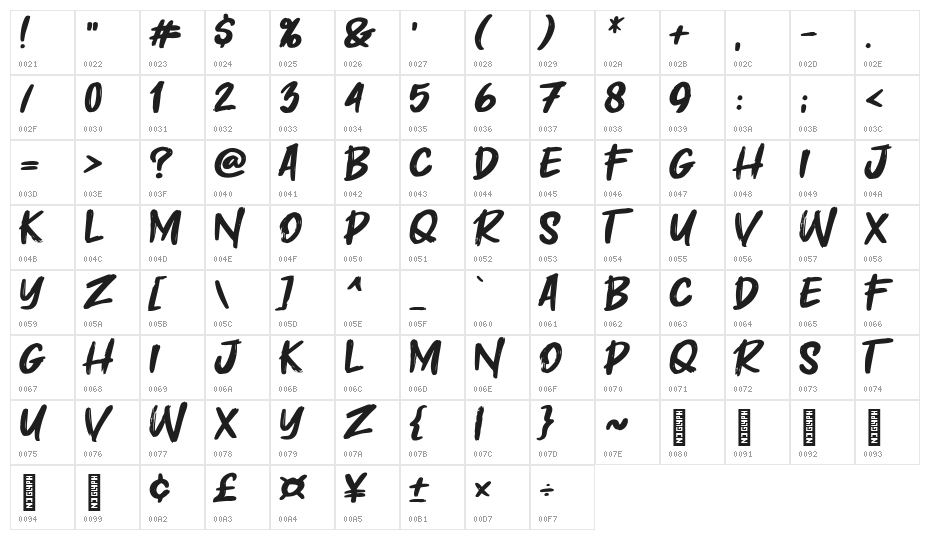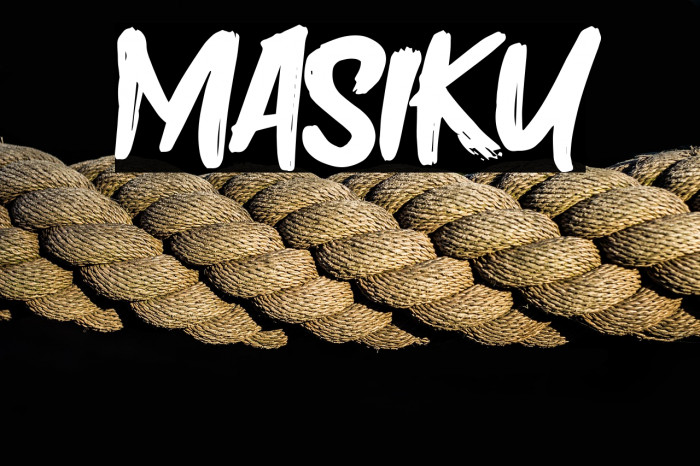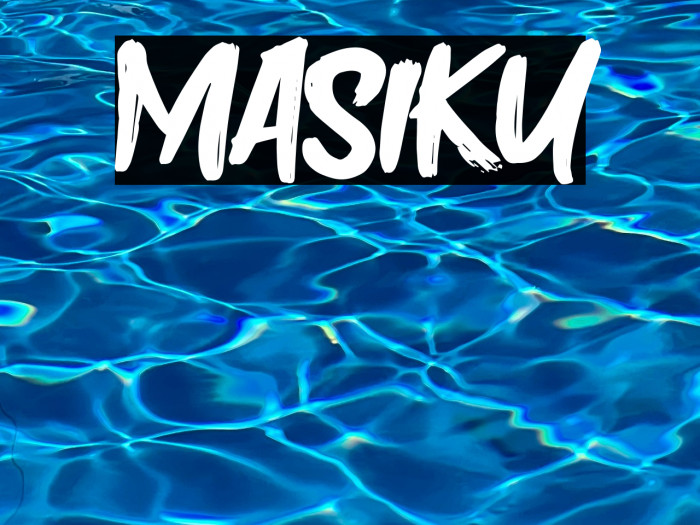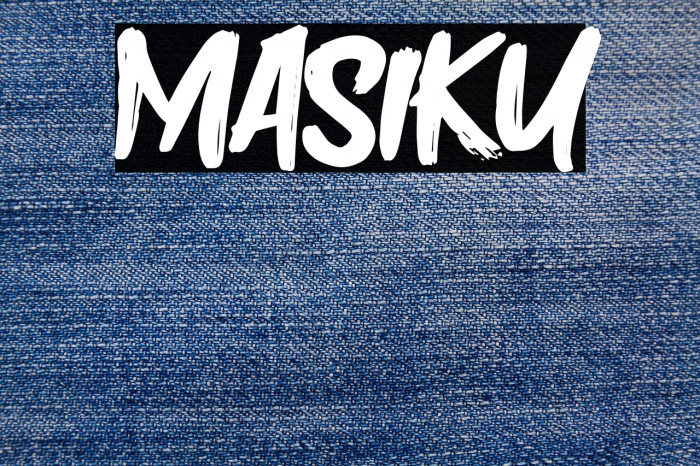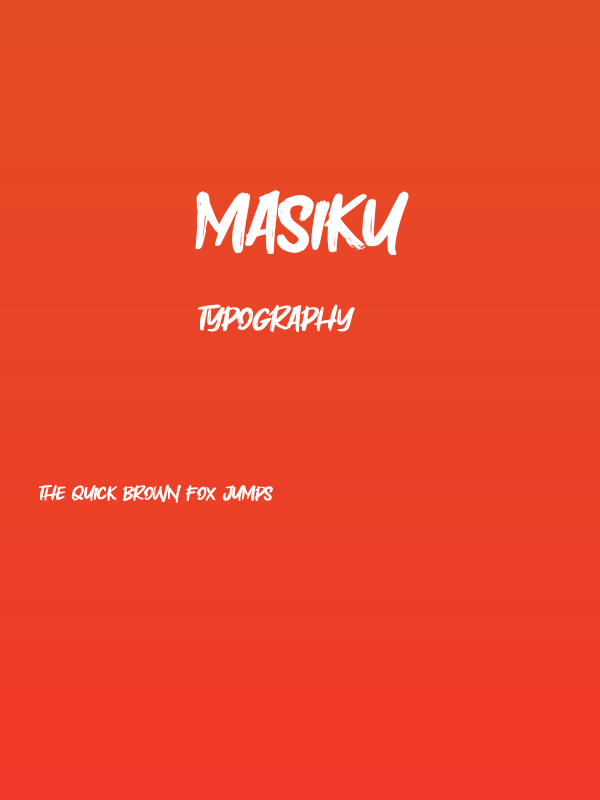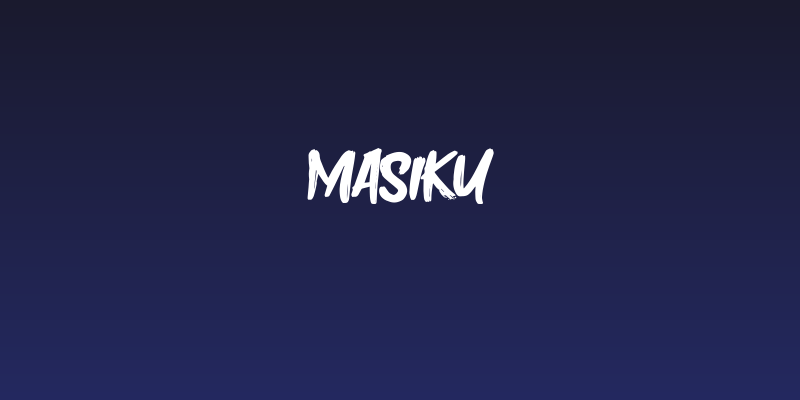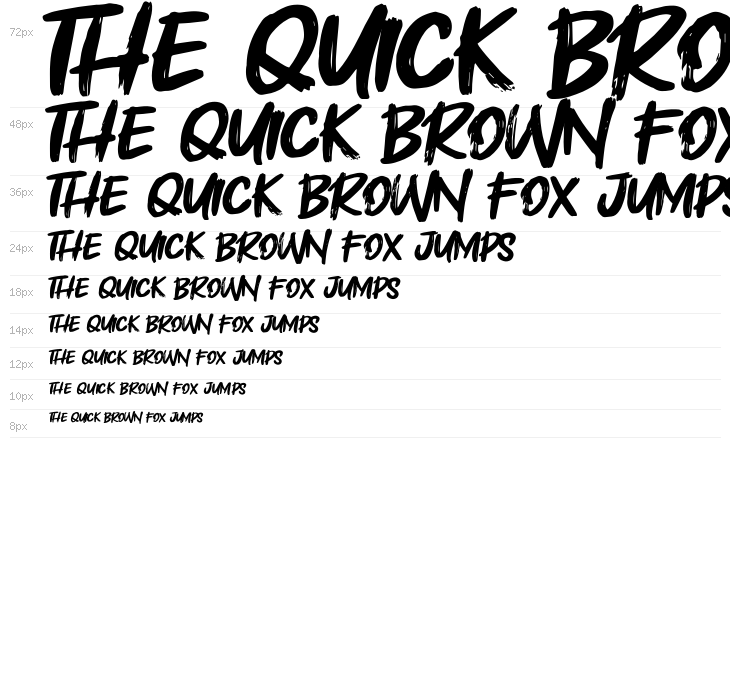
Masiku Font
Masiku Description
This font exhibits a bold and dynamic brush script style, characterized by its energetic and expressive strokes. The letters are crafted with a sense of movement and fluidity, giving the text a lively and spontaneous appearance. The uppercase and lowercase letters maintain a consistent style, with thick, bold lines that create a strong visual impact. The numbers and special characters follow the same design principles, ensuring uniformity across all elements. This font is ideal for projects that require a touch of creativity and flair, such as posters, branding, and artistic designs.
| Use Case | Headlines, Logos, Artistic designs |
| Proposed Projects | Ideal for posters, branding, artistic designs, and creative projects. |